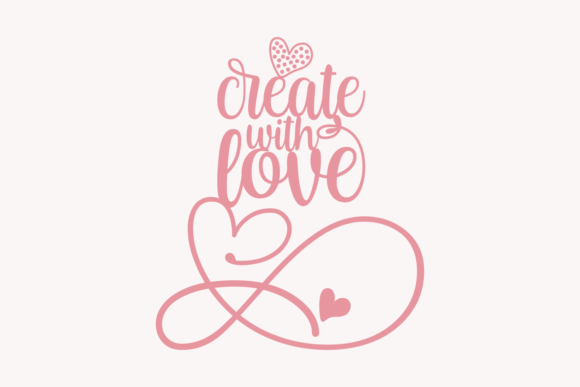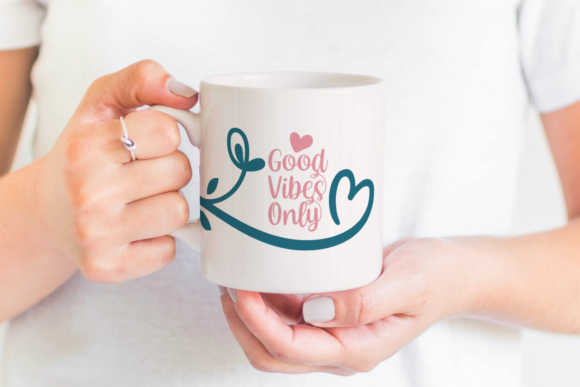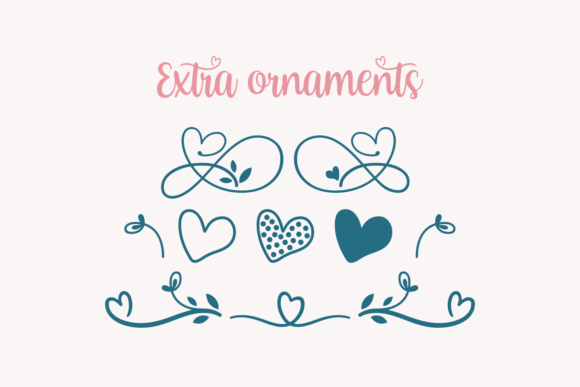
Creative Mothers Font
About Creative Mothers Font
Introducing “Creative Mothers” – a dazzling script font that exudes a lovely atmosphere and showcases a spotless form. Inspired by timeless classic calligraphy, Creative Mothers brings elegance and beauty to your projects with its balanced and varied letterforms.
Creative Mothers strikes the perfect balance between thin and thick strokes, creating a harmonious and visually appealing composition. The clean and flawless lines of this font reflect the meticulous craftsmanship of classic calligraphy, adding a touch of sophistication to your designs.
With its lovely atmosphere, Creative Mothers creates a warm and inviting ambiance. Whether used in invitations, branding materials, quotes, or any other project, this font elevates the visual appeal and captures attention with its graceful charm.
The versatility of Creative Mothers allows it to enhance a wide range of design concepts. Whether you’re working on wedding stationery, logo designs, packaging, or any other creative endeavor, Creative Mothers adds a touch of elegance and refinement, making your projects stand out.
The timeless appeal of classic calligraphy shines through in Creative Mothers, giving it a sense of longevity and enduring beauty. This font adds a touch of tradition and sophistication while still maintaining a contemporary feel, making it suitable for both classic and modern design aesthetics.
In conclusion, Creative Mothers is a dazzling script font that combines a lovely atmosphere with spotless form. Inspired by classic calligraphy, it enhances the beauty of your projects with its balanced and varied letterforms. Embrace the elegance and timeless charm of Creative Mothers and let it transform your invitations, branding materials, quotes, and more into captivating works of art.